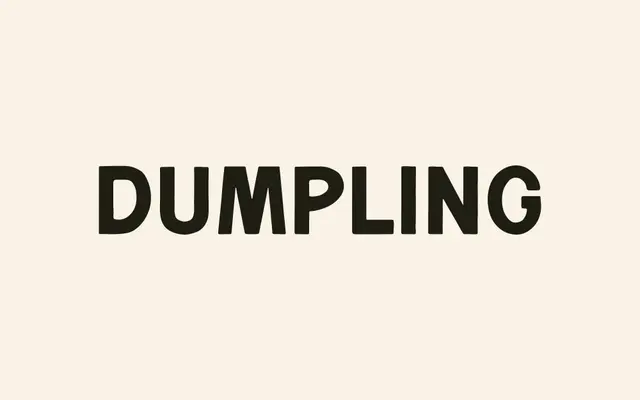
Dumpling
A single-weight bold display face with smooth, rounded letterforms suited to branding, packaging and logo work.
Offered in one weight only, Dumpling leans on chunky, organic forms that give it character without becoming chaotic. The 149-glyph set covers basic Latin with a limited selection of accented characters, keeping scope modest but usable for Western European languages. At £25 with a flat commercial licence covering logos, web, apps and broadcast, it sits in a practical mid-market tier for independent designers.
A single-weight bold display face with rounded, smooth letterforms described as bold and smooth; fits display sans rather than a functional text category given its single weight and expressive character.